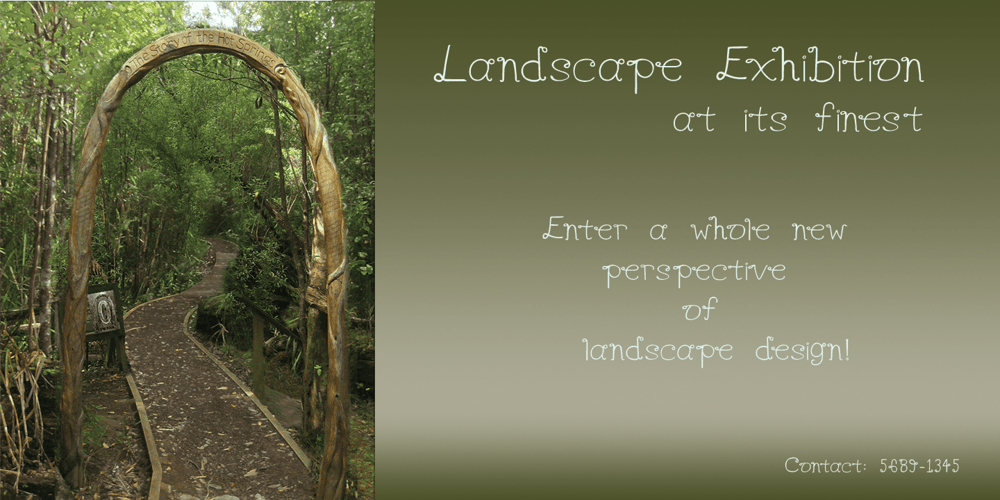
Teardrop Font Family was designed by Debbie Sinis and published by dgsdesigns. Teardrop contains 1 styles and family package options. A unique tear drop script with a “nature theme” that will provide a freedom of expression in an elegant approach to all your projects. Ideal for landscape exhibitions, wedding invitations , flyers, gallery exhibitions and much more.